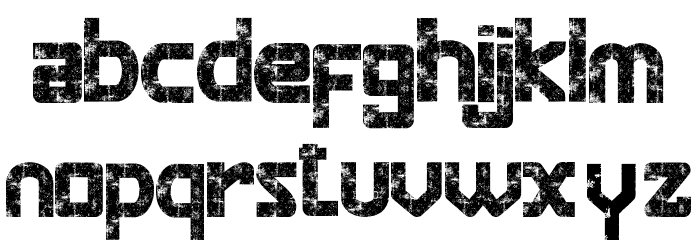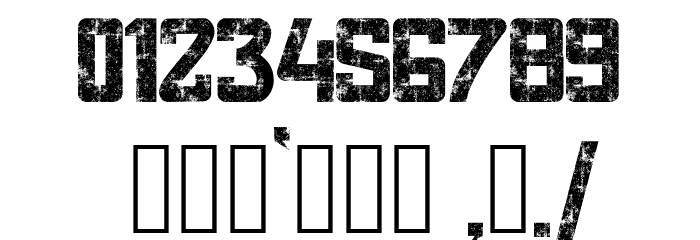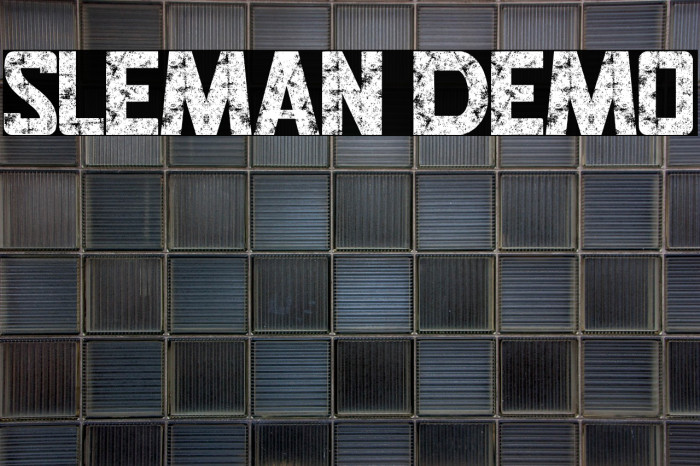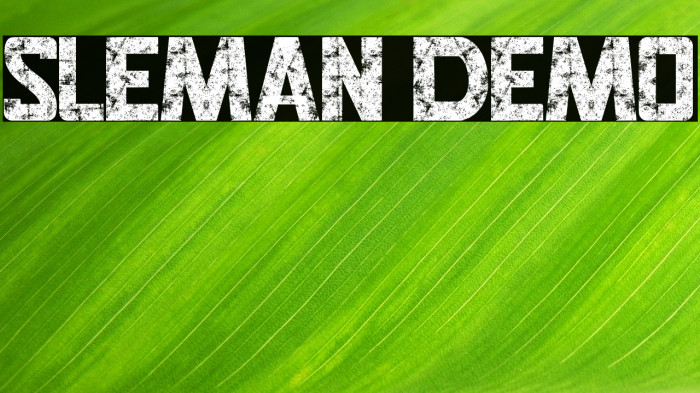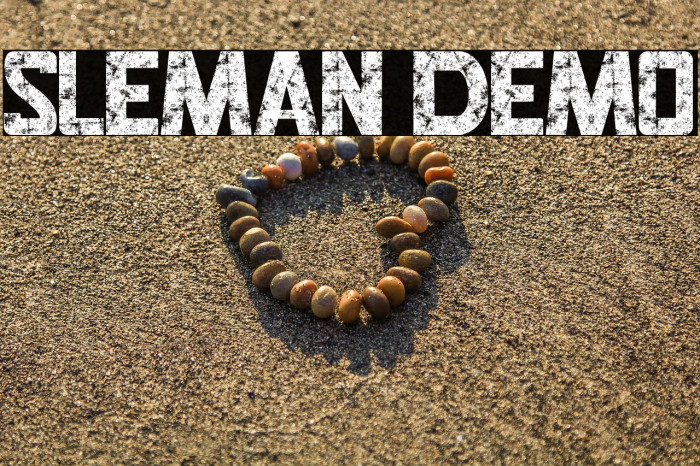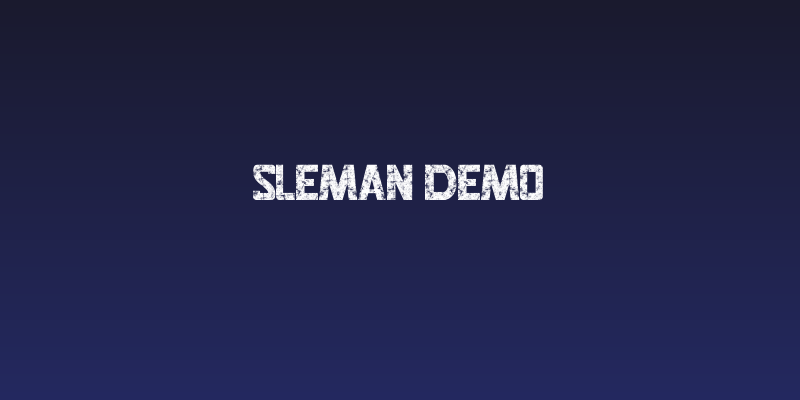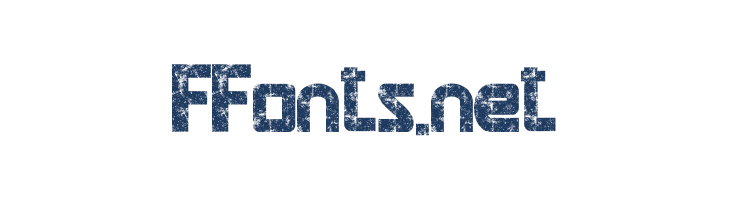
SLEMAN DEMO Font
This font features a bold, distressed style with a textured appearance that gives it a rugged and worn look. The characters are blocky and robust, with a consistent width that maintains a strong presence. The uppercase and lowercase letters share a uniform design, enhancing the font's cohesive appearance. Numbers and special characters are also included, matching the overall aesthetic. The distressed texture adds a vintage or grunge feel, making it suitable for projects that require a bold statement or an edgy, urban vibe.
- Font: SLEMAN DEMO
- Proposed Projects: Ideal for posters, album covers, branding for edgy or vintage-themed products, and any design requiring a strong, impactful look.
- Overall Style: Vintage, Grunge